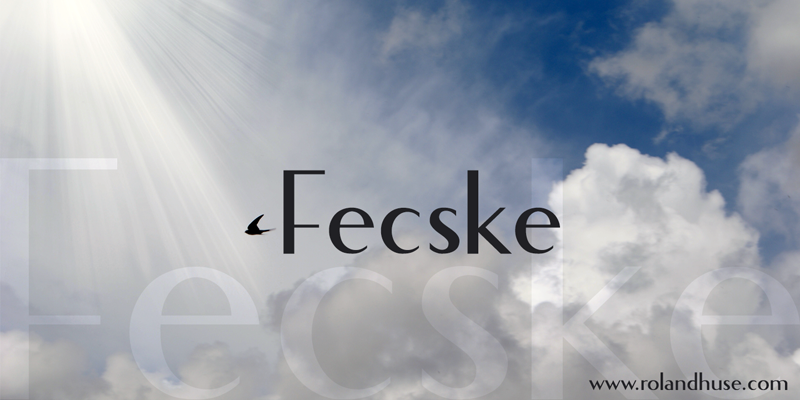
Preview and download Fecske Font. Created by Runes & Fonts in Basic Sans serif styles with Free for personal use license.
FECSKE is the clean font design means "swallow". This font is free for PERSONAL use only. For any commercial use (anything you make money from), you must send a paypal donation to myhandwritings@gmail.com. For full version please contact me via myhandwritings@gmail.com also about the following: -This family does not contain all the language extensions, but I am willing to create any extensions on request - Discovering kerning problems while using - Or any other question or feedback. You MAY NOT sell my fonts or claim them as your own. You MAY NOT edit or rename my fonts. You MAY redistribute my fonts if: 1. You credit me (Roland Huse). 2. Keep the READ ME file intact within the zip folder. 3. Provide a link back to my website (www.rolandhuse.com). Thank you & I hope you like this font, Roland poster artwork background picture is from : http://www.creationswap.com/media/3228 http://www.rolandhuse.com More... |